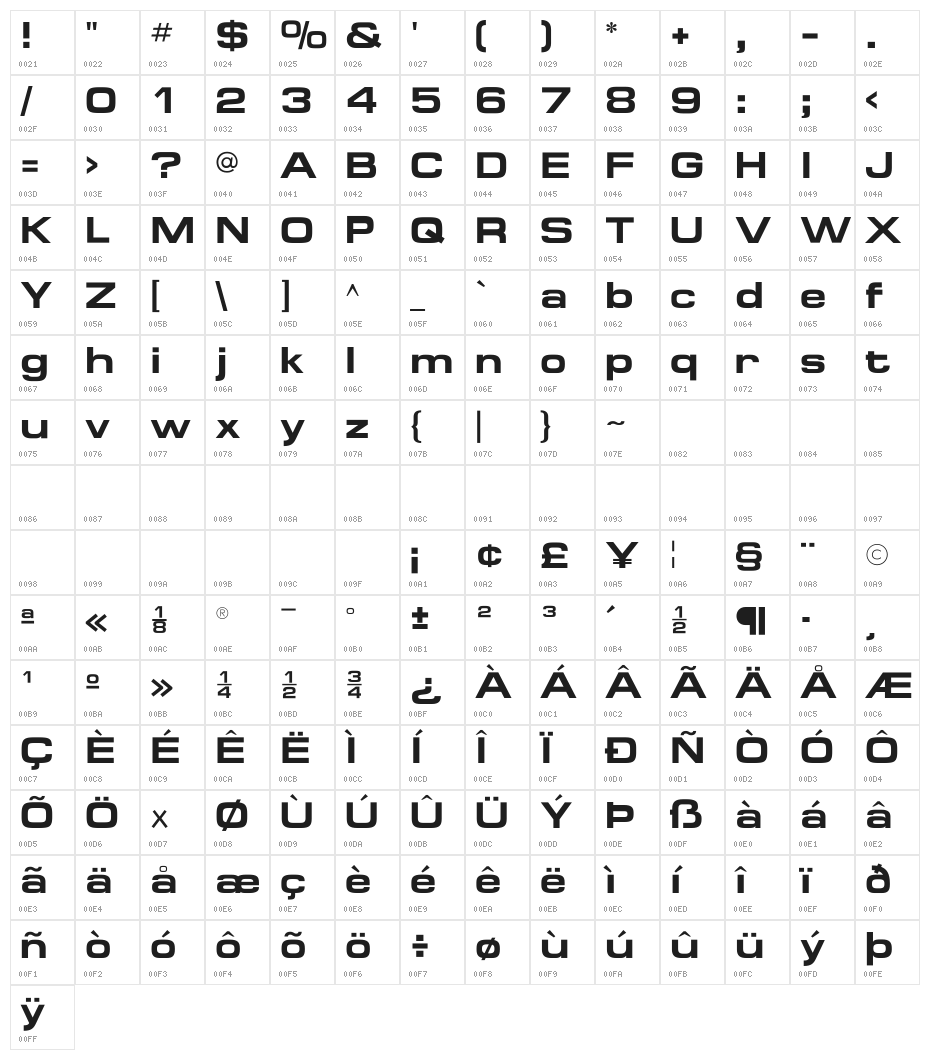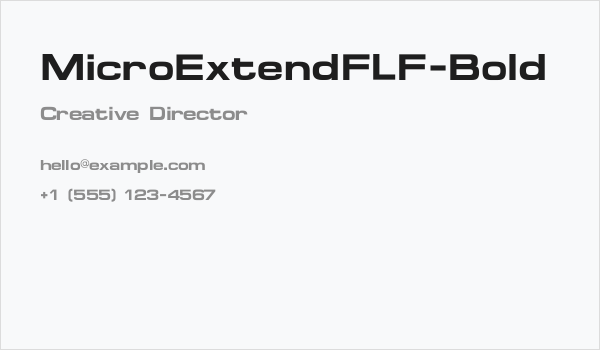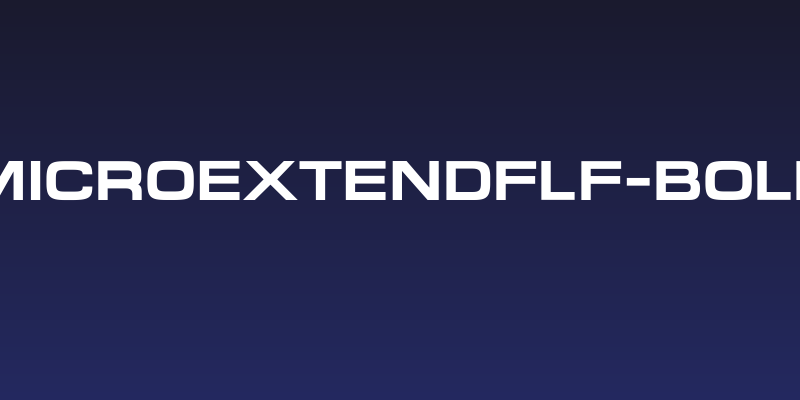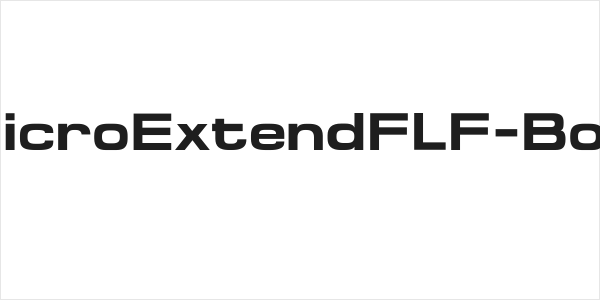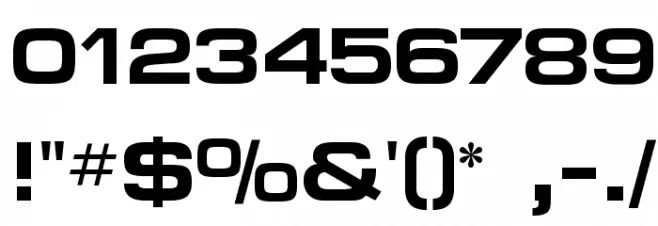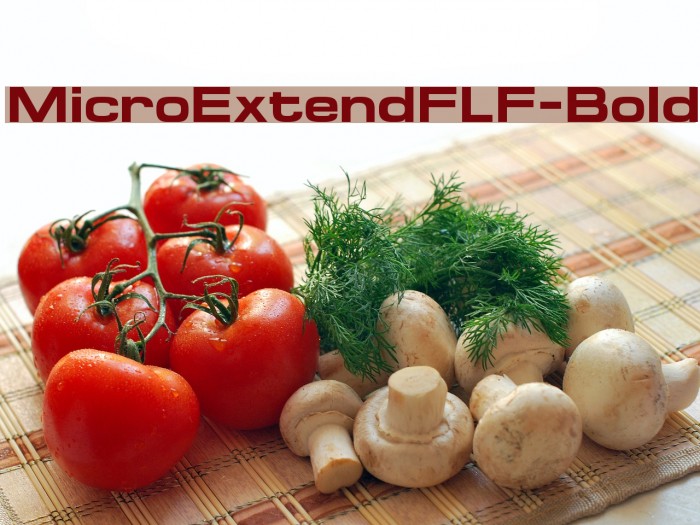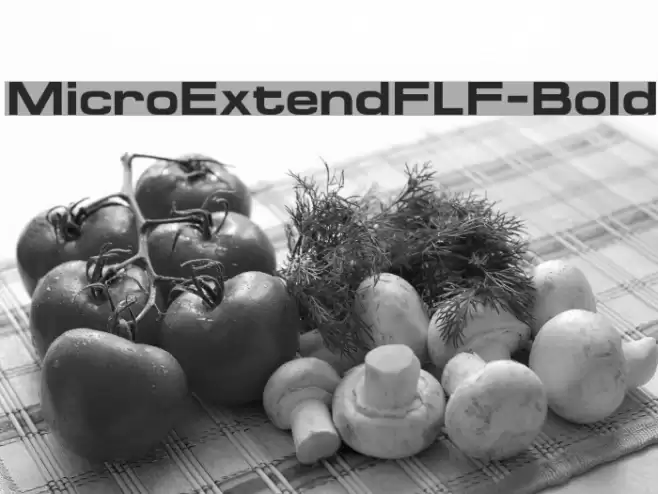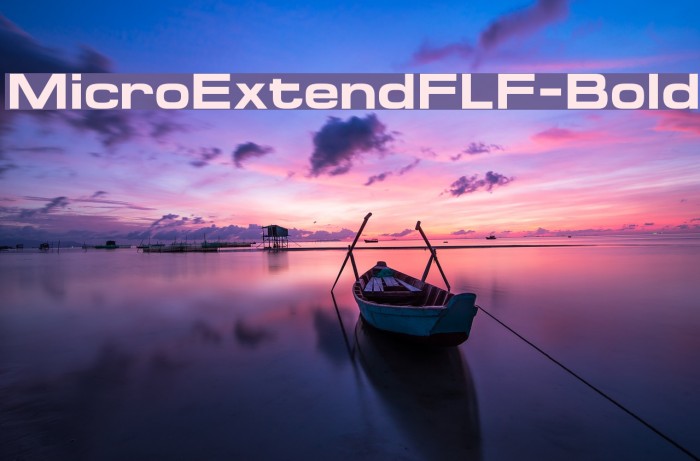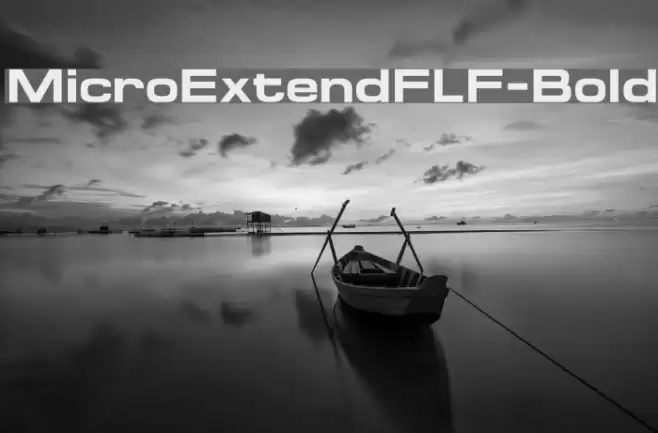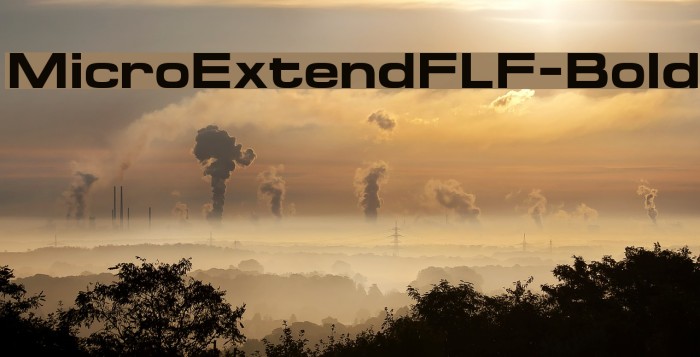
MicroExtendFLF-Bold Font
MicroExtendFLF-Bold Description
This font exhibits a bold and modern aesthetic with a strong presence. The characters are uniformly thick, providing a sense of stability and confidence. The uppercase letters are particularly striking, with a geometric influence that is both contemporary and timeless. The lowercase letters maintain the same boldness, ensuring readability and consistency across different text sizes. The numerals are clear and robust, making them suitable for various applications. Special characters are well-defined, adding versatility to the font's use. Overall, this font is ideal for making a statement in any design project.
| Proposed Projects | Ideal for branding, headlines, posters, and digital media where a strong visual impact is needed. |